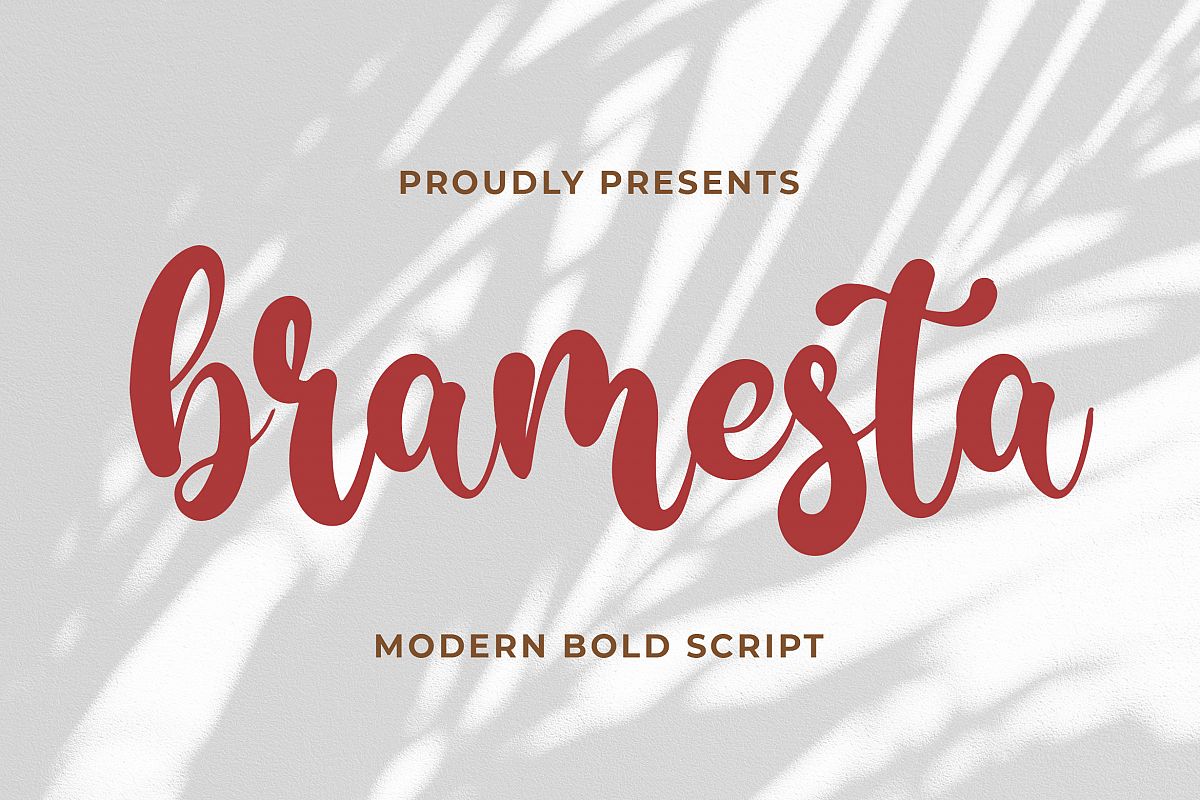
Introducing of our new product the name is Bramesta Modern Bold Script. Bramesta made with brushpen this font is a fun theme very good for signature, poster, fashion, wedding, branding etc
MULTILINGUAL ACCENT :ŽžŠŒšŸÀÁÂÃÄÅÆÇÈÉÊËÌÍÎÏÐŁÑÒÓÔÕÖØÙÚÛÜÝßàáâãäåæçèéêëìíîïłñòóôõöøùúûüýÿ